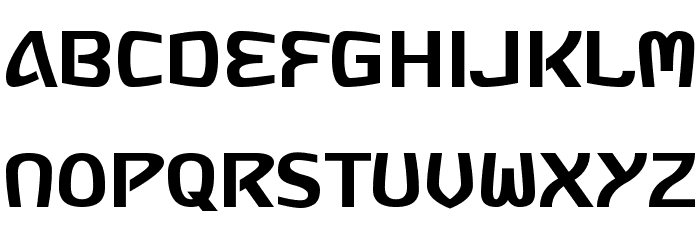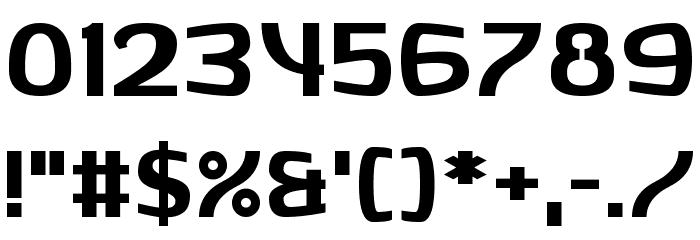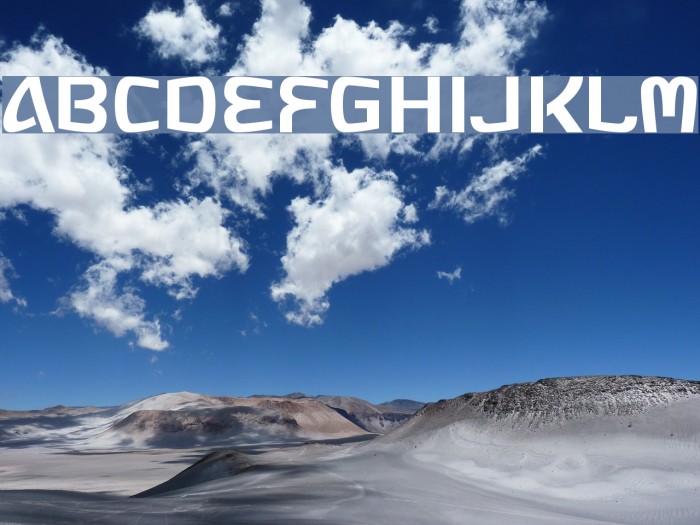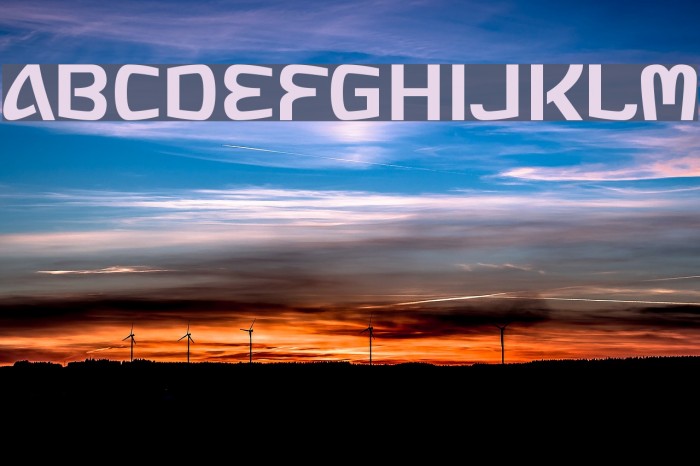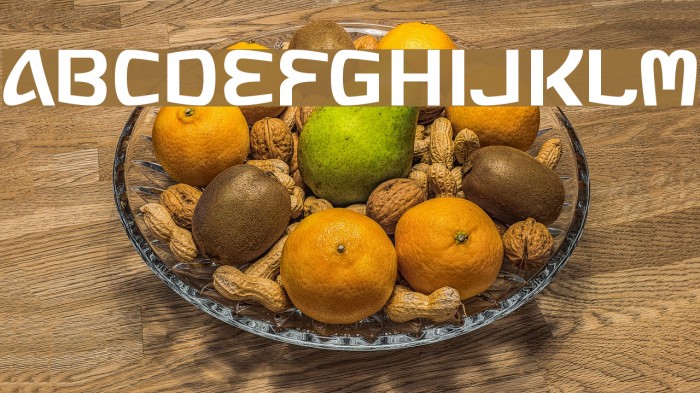
Russia Five Font
This font features a bold and modern design with a distinctive geometric style. The characters are slightly condensed, giving a compact and efficient appearance. The strokes are consistent in width, providing a uniform look across all characters. The font includes both uppercase and lowercase letters, numerals, and a variety of special characters, making it versatile for different uses. The overall style is clean and contemporary, suitable for projects that require a strong visual impact.
A bold, geometric font with a modern and uniform design.
- Proposed Projects: Ideal for branding, posters, headlines, and digital media where a strong, modern aesthetic is desired.